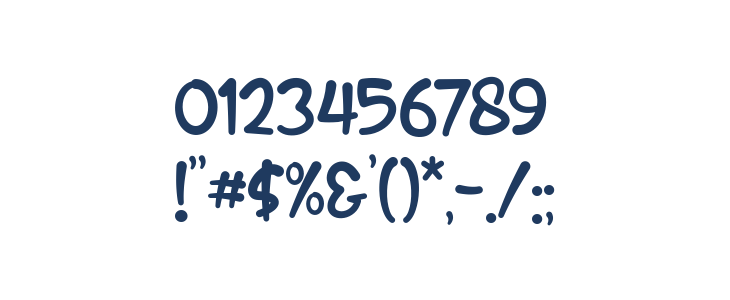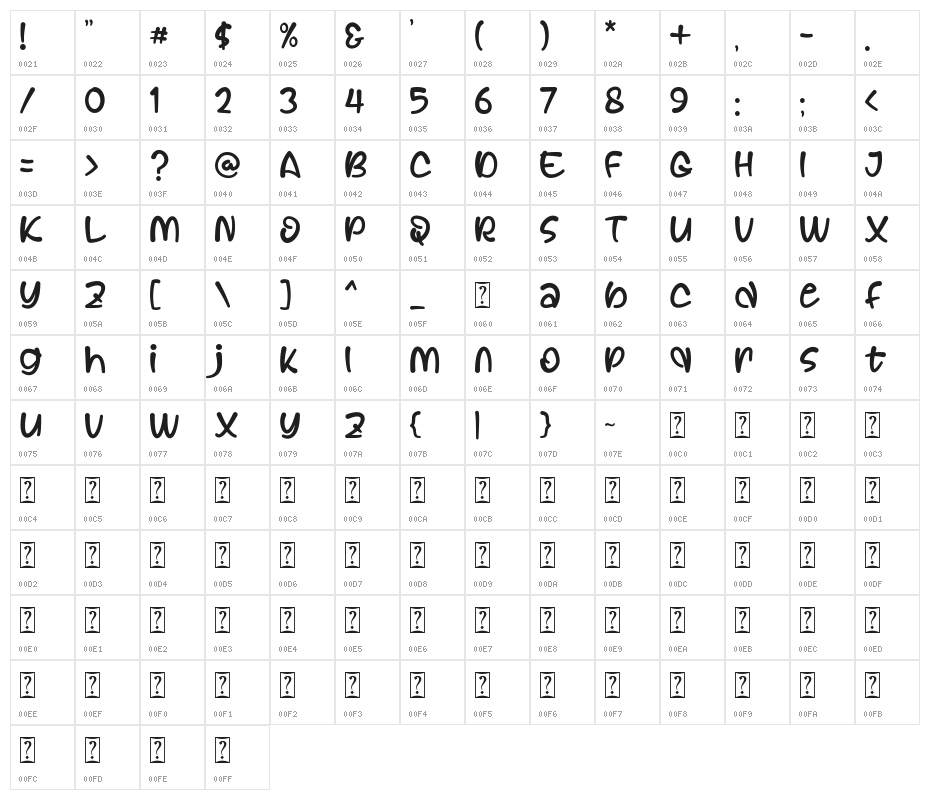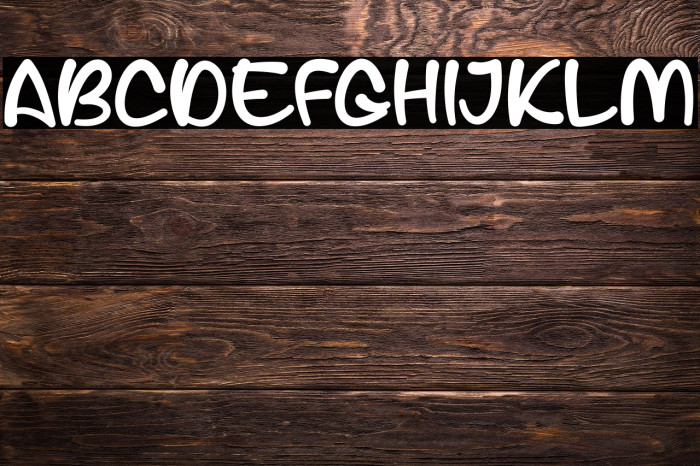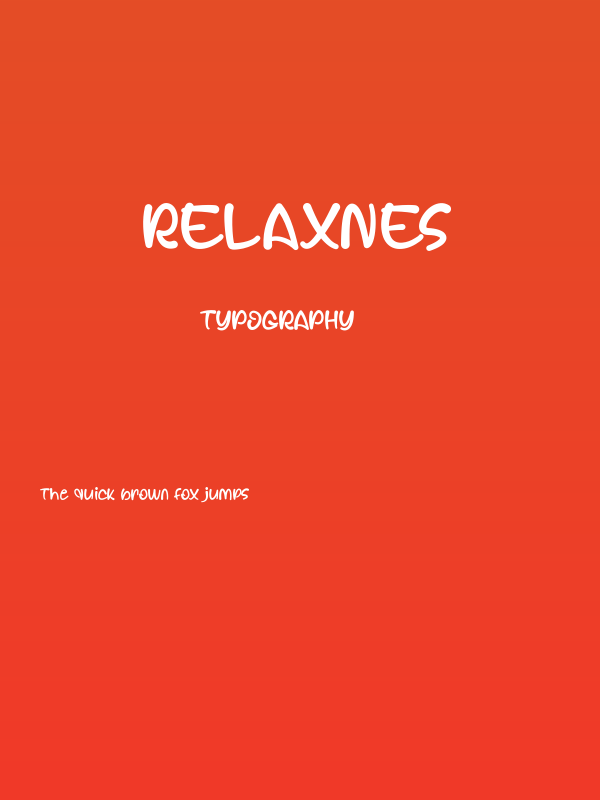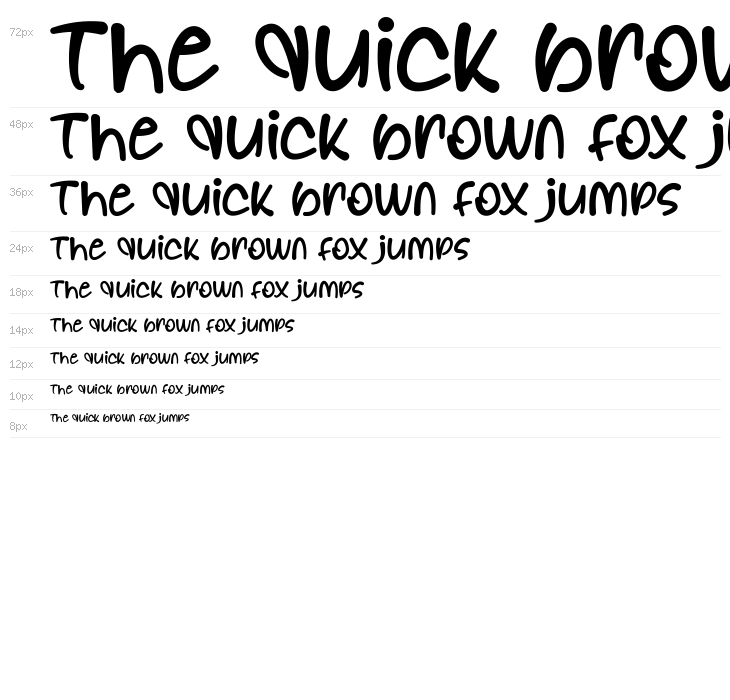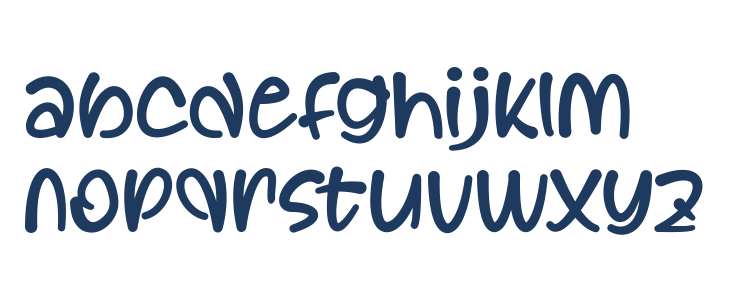
Relaxnes Font
Relaxnes Description
This playful and bold font features rounded, thick strokes that give it a friendly and approachable appearance. The characters are slightly irregular, adding a whimsical touch that makes it stand out. The uppercase and lowercase letters maintain a consistent style, with a slight slant that suggests movement and energy. Numbers and special characters follow the same design principles, ensuring uniformity across all elements. This font is perfect for projects that require a fun and informal vibe, such as children's books, playful branding, or casual invitations.
| Proposed Projects | Ideal for children's books, playful branding, casual invitations, and informal posters. |